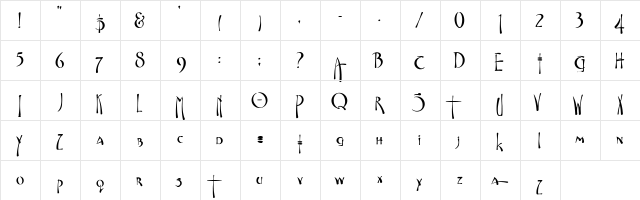
Fontasia Regular Font Preview
Fontasia Regular
Design Context for Fontasia Typeface
Fontasia is a composed and adaptable typeface that performs quietly and consistently across a wide range of design contexts.